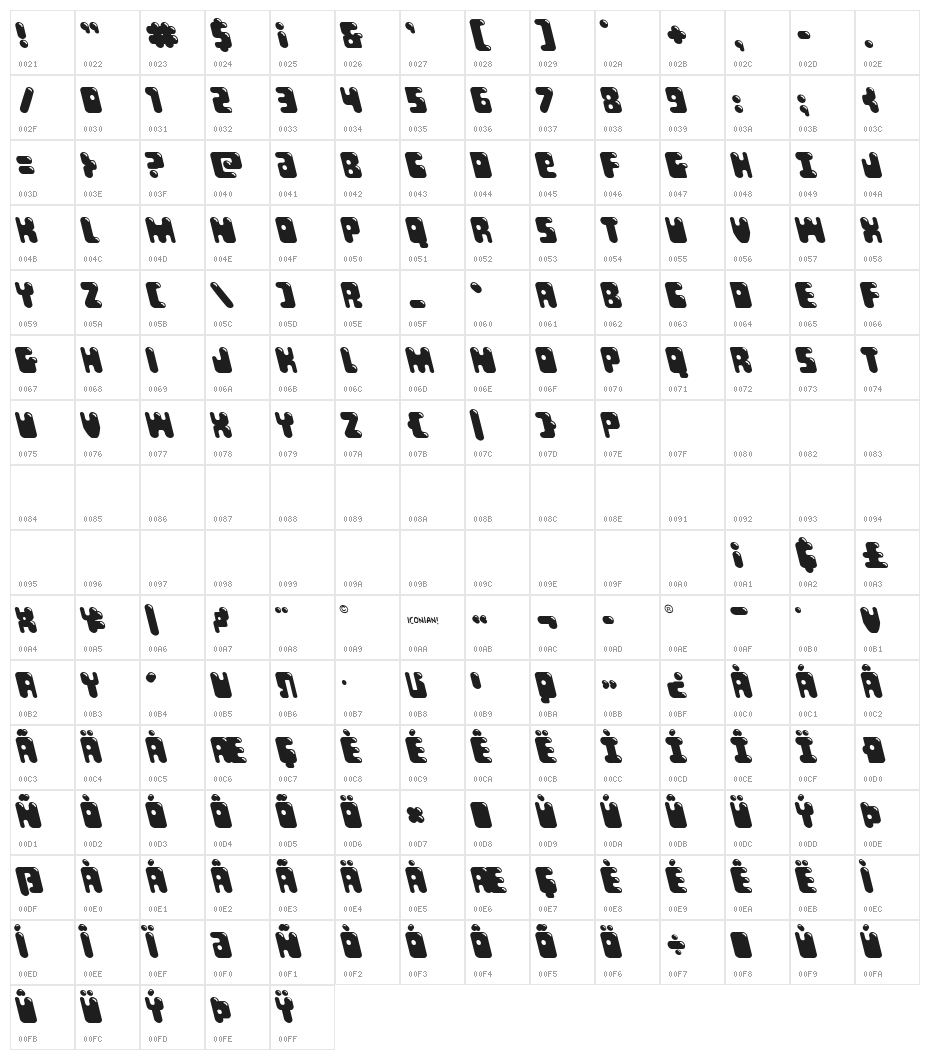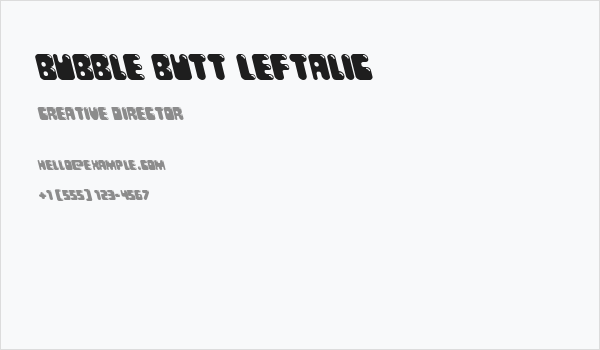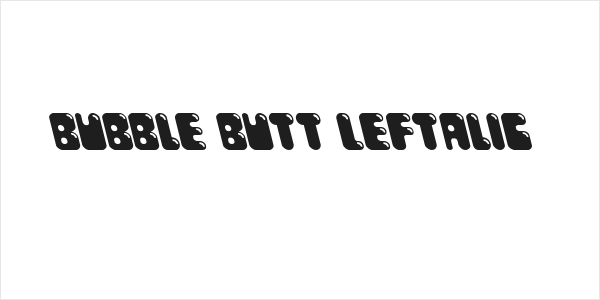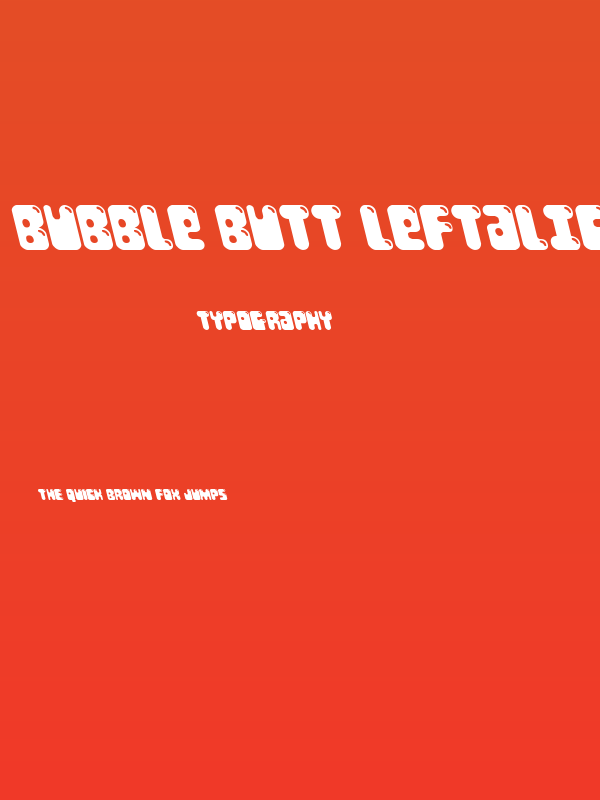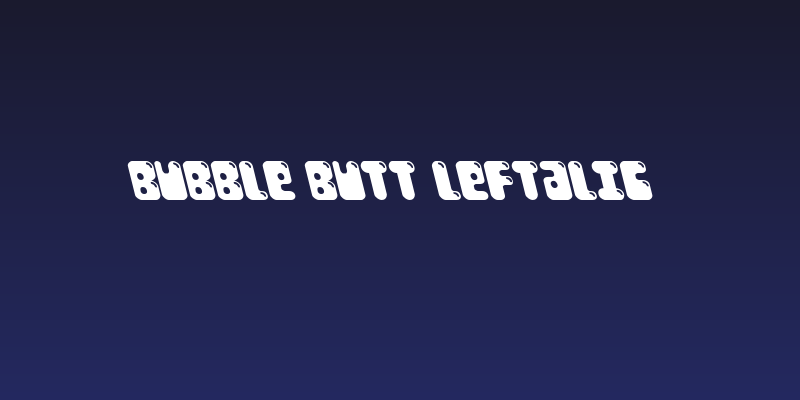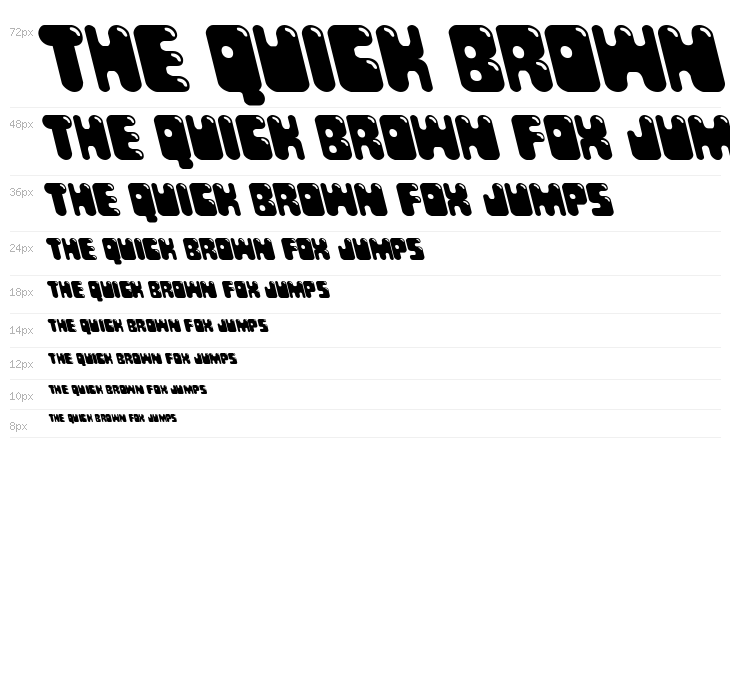
Bubble Butt Leftalic Font
Bubble Butt Leftalic Description
This playful and bold font features a unique bubble-like design with a left-leaning slant, giving it a dynamic and whimsical appearance. The characters are thick and rounded, with a consistent stroke width that adds to its boldness. The font's distinctive style is characterized by its exaggerated curves and playful forms, making it stand out in any design. It is particularly suitable for creative and fun projects where a lighthearted and eye-catching typeface is desired. The font's boldness and unique style make it ideal for use in headlines, posters, and other display purposes.
| Use Case | Headlines, Posters, Creative Displays |
| Proposed Projects | Ideal for children's books, playful branding, event posters, and creative advertisements. |